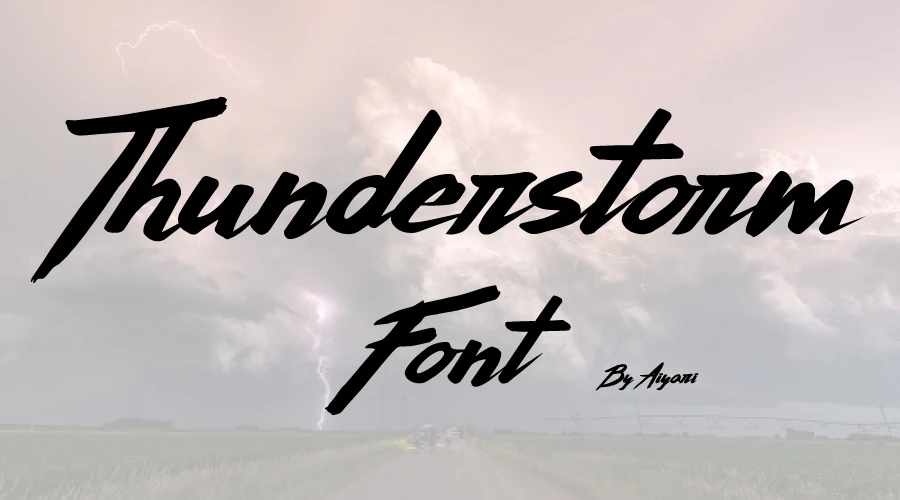
Thunderstorm Font
Today we are introducing the Thunderstorm font. It is an excellent contemporary font. The font is distinguished in its look and feel. The hand-painted look of this font gives it a retro feel. Additionally, it has a grunge feel to it. In no way does this font fail to impress people around the globe.
The font is designed and published by Graphic & Digital Type Foundry, based in Bandung, Indonesia, called Aiyar. The font was created on January 05, 2016. The handwritten script typeface has its inspiration from the 80s and 90s culture. Due to that, the font is suitable for any sort of aesthetic need to make an impact that leaves the viewers in awe.
After the new update, the font now has the latest addition to the glyphs, Multi-Language support (Central European) and a new font, Thunderstorm Signature.
This retro styled typeface was designed for projects like logos, posters, T-shirts and more in mind. With its grungy outline and vintage style, ThunderStorm Font is perfect for any project that needs a retro look.
Ans: The Thunderstorm font is a contemporary handwritten script typeface.
Ans The font is designed and published by Graphic & Digital Type Foundry, based in Bandung, Indonesia, called Aiyar.